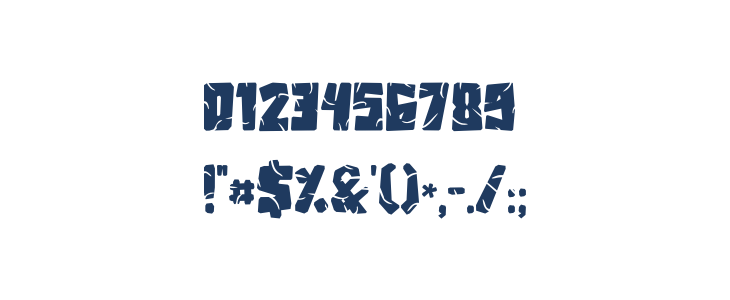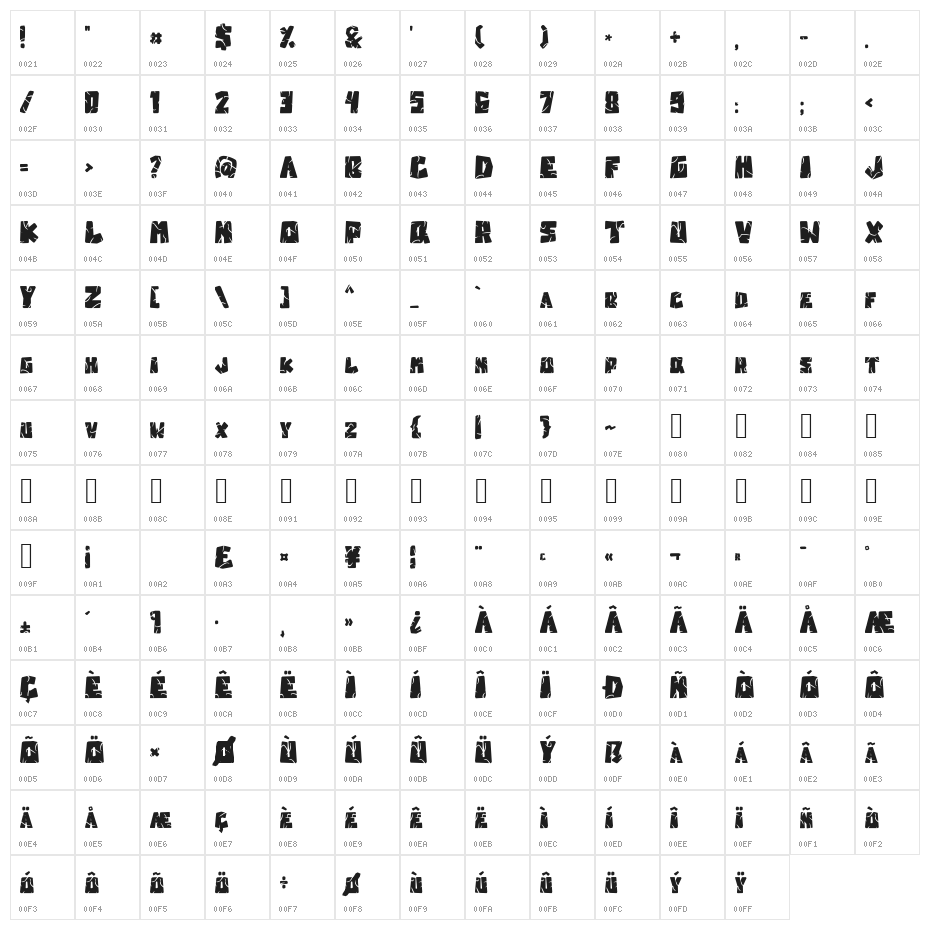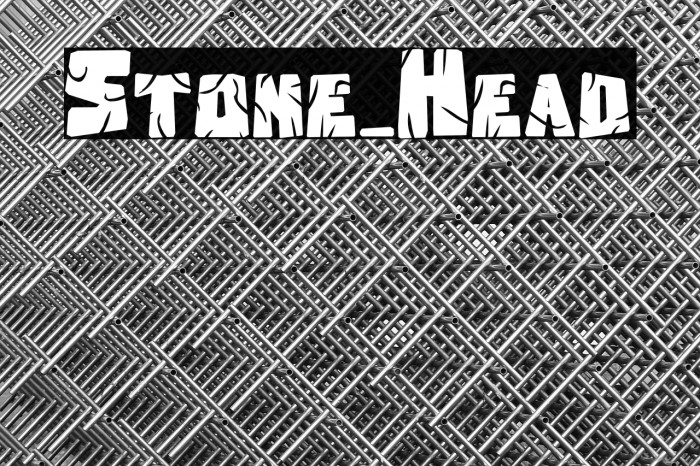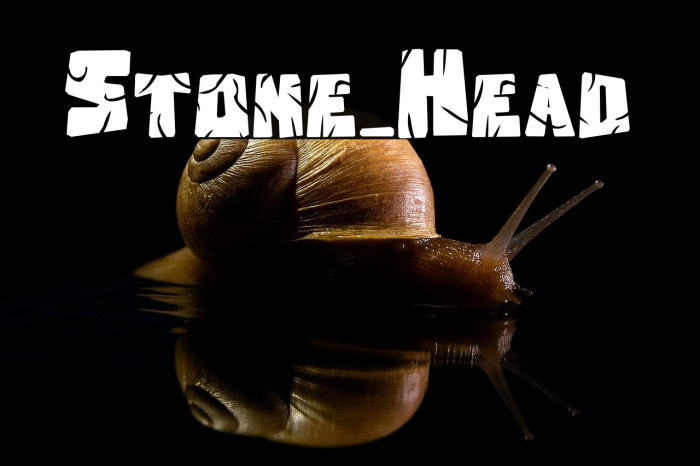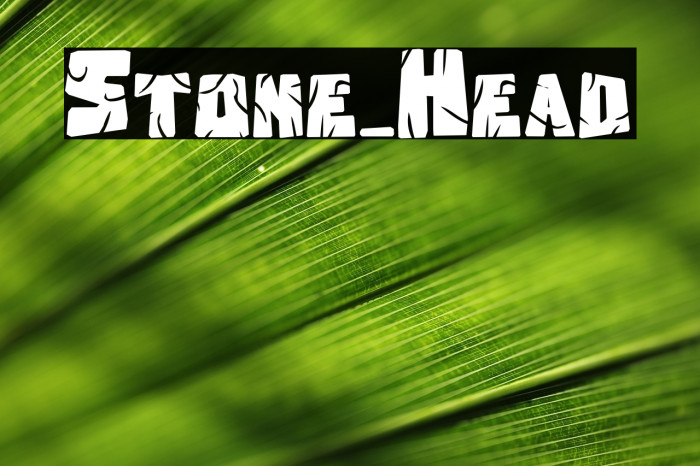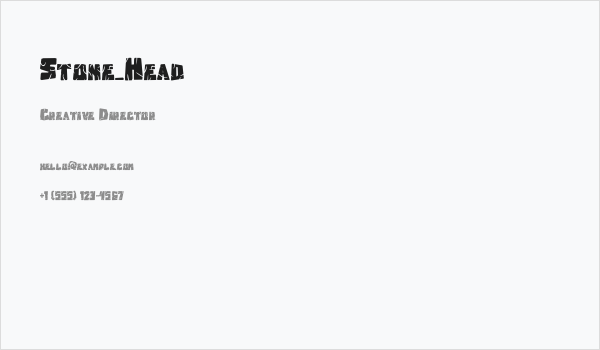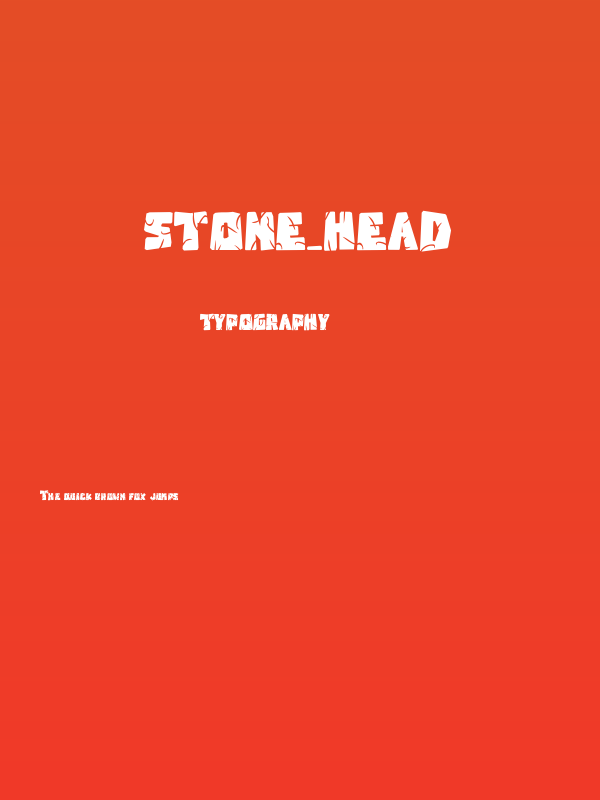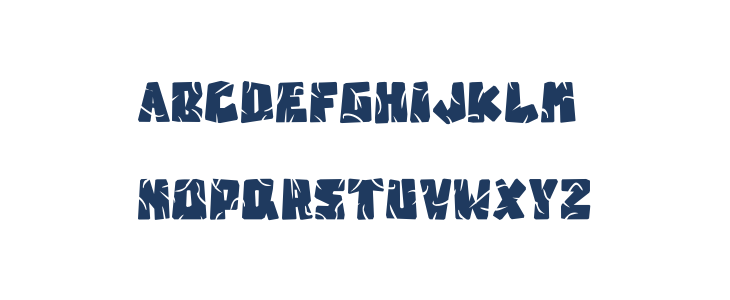
Stone_Head Font
Stone_Head Description
This font features a bold, rugged design reminiscent of carved stone or rock formations. Each character is constructed with angular, jagged edges and irregular shapes, giving it a distinctly rough and textured appearance. The uppercase and lowercase letters maintain a consistent style, with the uppercase being more pronounced and dominant. The numbers and special characters follow the same aesthetic, ensuring a cohesive look throughout. This font is ideal for projects that require a strong, impactful presence, such as posters, headlines, or branding for outdoor or adventure-themed products.
| Proposed Projects | Ideal for adventure-themed branding, posters, and headlines. |